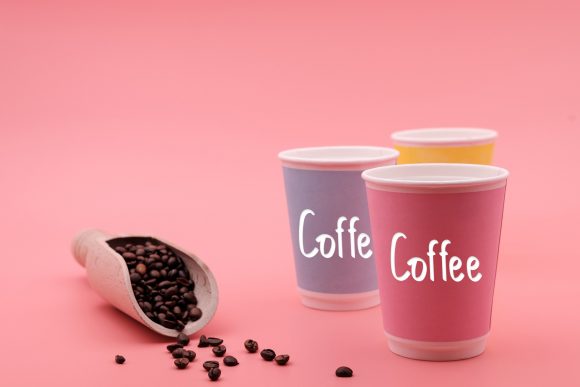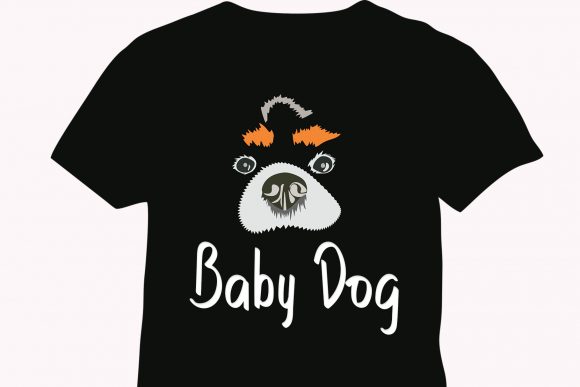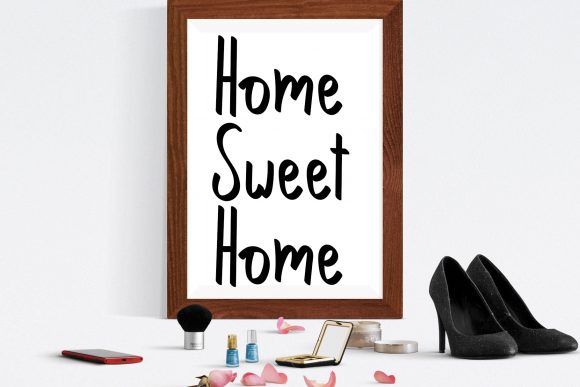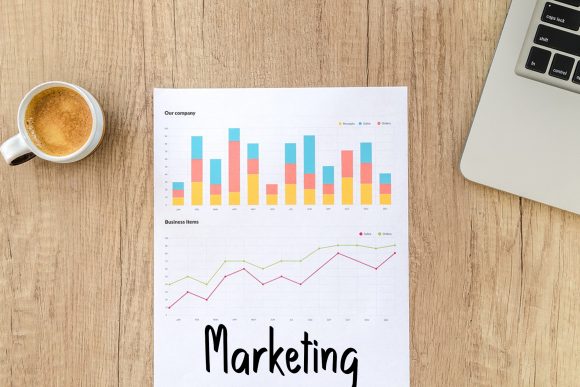
Introducing Foot Ball Font: The Ultimate Whimsical Script Font for Designers
Are you tired of using the same old fonts in your designs? Look no further! Foot Ball Font is here to revolutionize your typography with its relaxed theme and lovely style. This whimsical script font is perfect for designers and crafters who want to add a touch of personality to their creations. In this article, we’ll dive into the world of Foot Ball Font and explore its features, benefits, and uses.
A Versatile Font for All Occasions
Foot Ball Font is an incredibly versatile font that can be used for a wide range of design projects. Whether you’re working on a logo, brochure, poster, or social media graphics, this font is sure to elevate your creation. Its relaxed theme and whimsical style make it perfect for designs that require a friendly and approachable tone. From sports-themed designs to fashion and lifestyle projects, Foot Ball Font is the perfect choice.
Key Features of Foot Ball Font
- Whimsical Script Style: Foot Ball Font features a beautiful, flowing script style that’s perfect for adding a touch of elegance and sophistication to your designs.
- Relaxed Theme: The font’s relaxed theme makes it perfect for designs that require a friendly and approachable tone.
- Highly Legible: Foot Ball Font is highly legible, even at small sizes, making it perfect for use in a variety of design projects.
- Multilingual Support: The font supports multiple languages, making it a great choice for designers who work with international clients.
Benefits of Using Foot Ball Font
So, why should you choose Foot Ball Font for your design projects? Here are just a few benefits of using this amazing font:
- Elevate Your Designs: Foot Ball Font has the potential to elevate any creation, adding a touch of personality and style to your designs.
- Save Time: With Foot Ball Font, you can create stunning designs in no time. Its highly legible and versatile style makes it easy to use and pair with other fonts.
- Stand Out from the Crowd: Foot Ball Font is a unique and distinctive font that will help your designs stand out from the crowd.
Tips for Using Foot Ball Font
Here are a few tips for using Foot Ball Font in your design projects:
- Pair it with Other Fonts: Foot Ball Font pairs well with a variety of other fonts, including sans-serif and serif fonts.
- Use it for Headings and Titles: Foot Ball Font is perfect for use in headings and titles, where its whimsical style can really shine.
- Experiment with Colors: Foot Ball Font looks great in a variety of colors, so don’t be afraid to experiment and find the perfect color scheme for your design.
In conclusion, Foot Ball Font is an amazing whimsical script font that’s perfect for designers and crafters who want to add a touch of personality to their creations. Its relaxed theme and lovely style make it versatile and easy to use, while its highly legible and multilingual support make it a great choice for a wide range of design projects. Whether you’re working on a logo, brochure, poster, or social media graphics, Foot Ball Font is sure to elevate your design and help you stand out from the crowd.